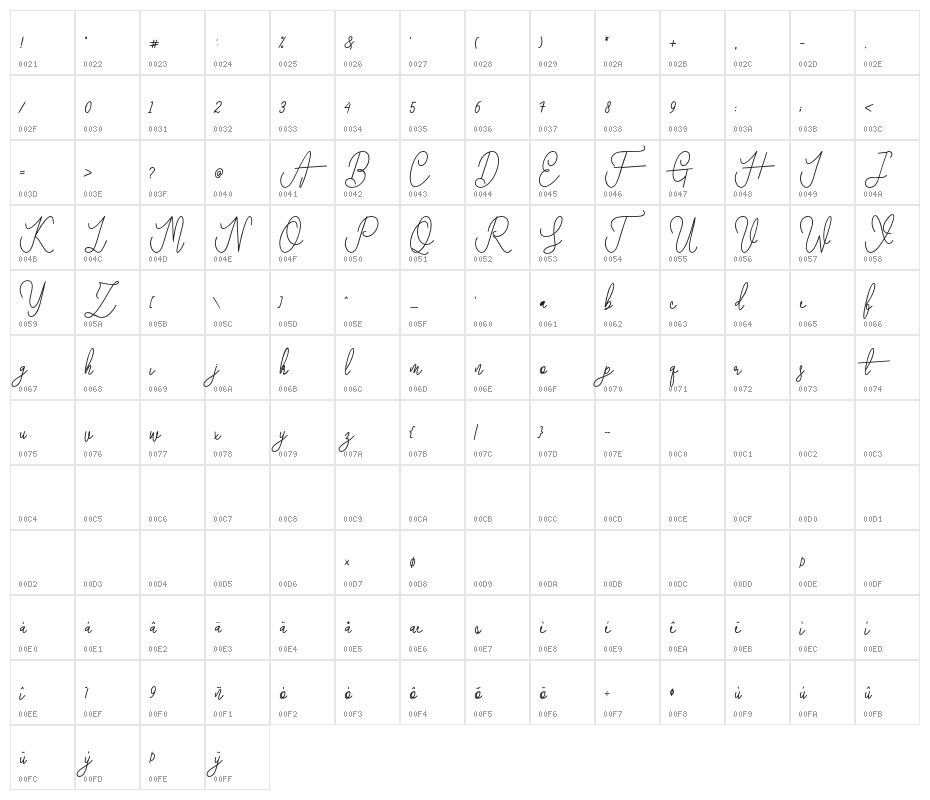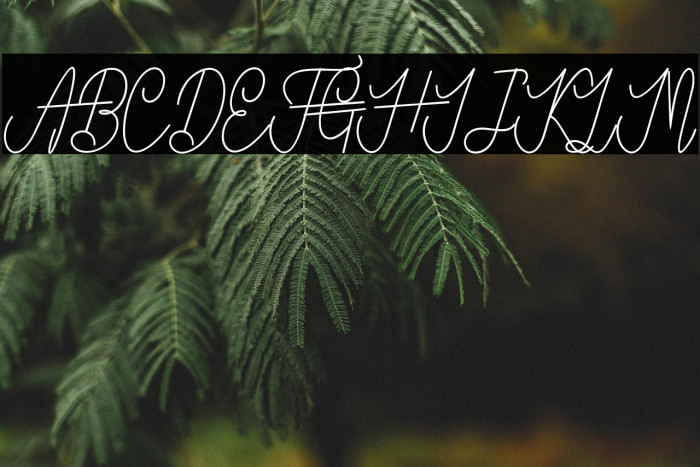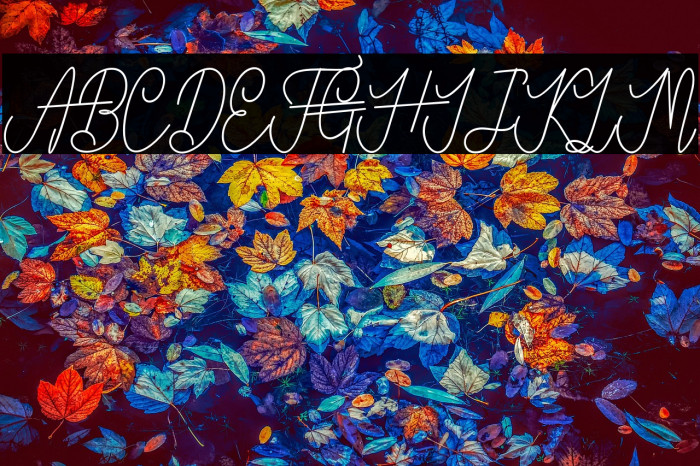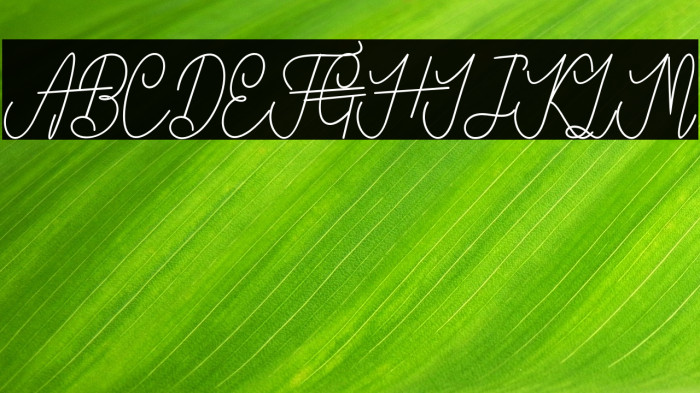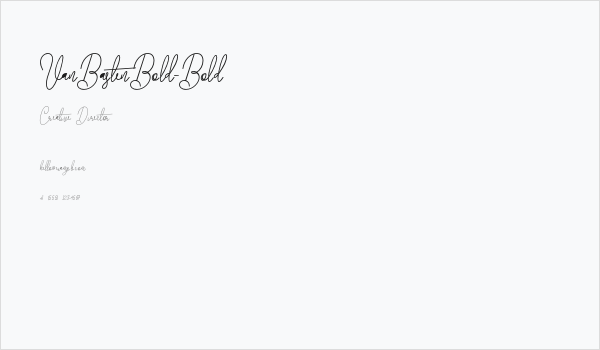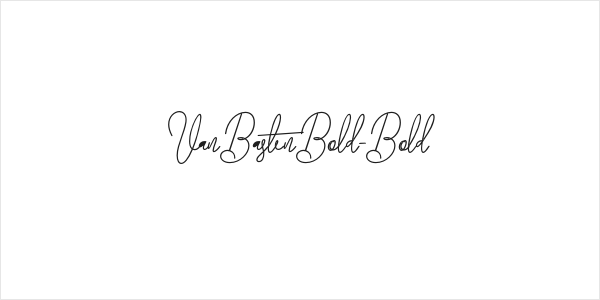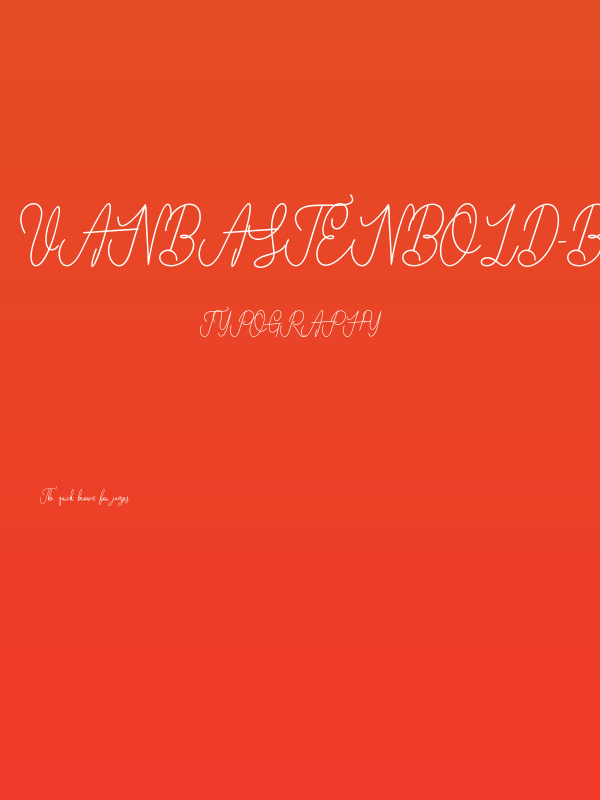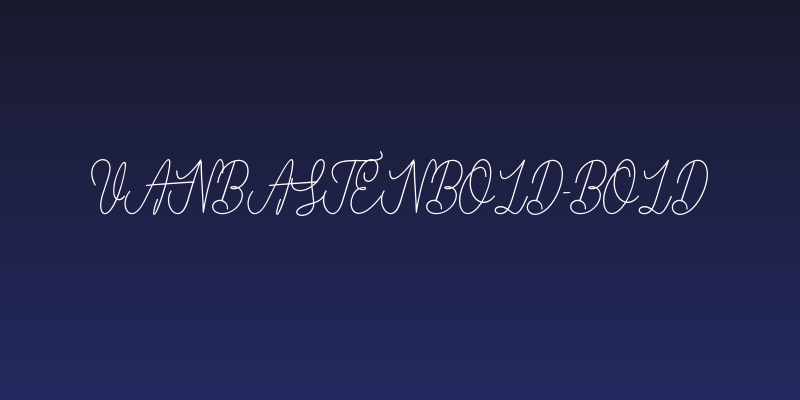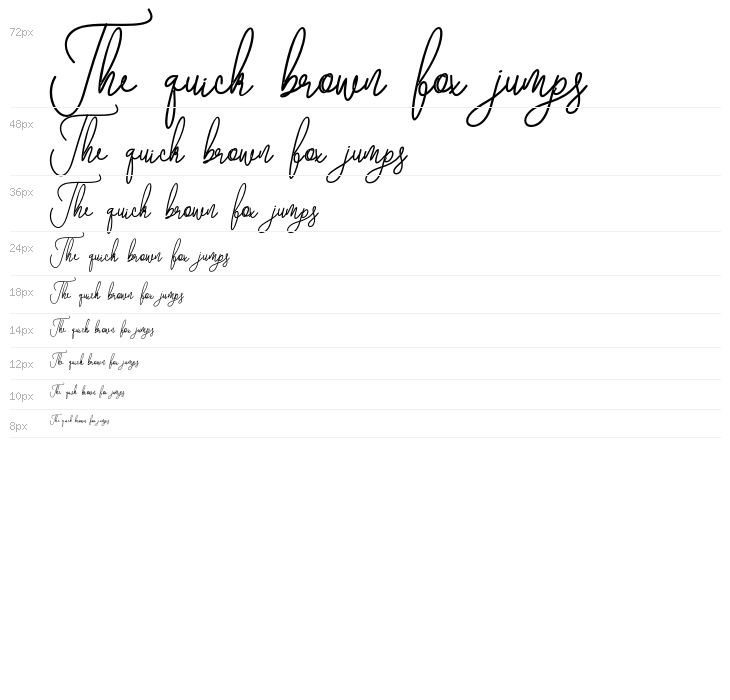
VanBastenBold-Bold Font
VanBastenBold-Bold Description
This font is a stylish and elegant script typeface that features flowing, interconnected letters. It has a handwritten quality with a modern twist, making it suitable for a variety of design projects. The uppercase letters are tall and graceful, while the lowercase letters maintain a consistent flow, enhancing readability. The numerals and special characters are designed to complement the overall aesthetic, ensuring a cohesive look across all text elements. This font's unique style is perfect for adding a personal touch to any design.
| Proposed Projects | Ideal for wedding invitations, branding, greeting cards, and elegant packaging designs. |